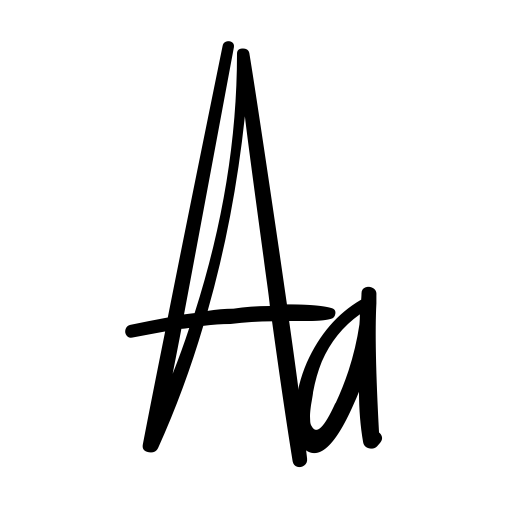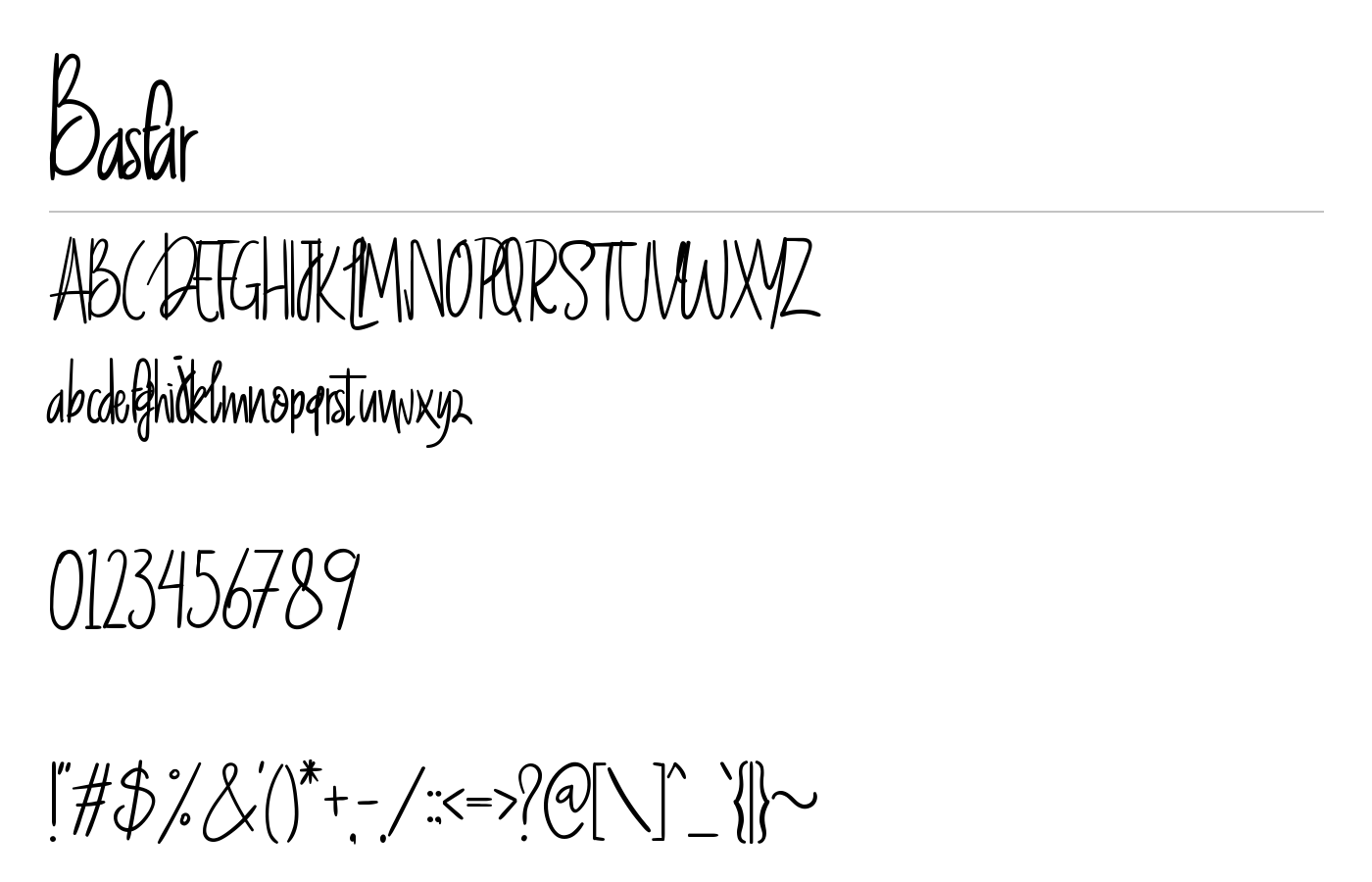
Basfar is a tall, narrow handwritten font with a playful and casual character, featuring thin, uneven strokes that evoke a spontaneous, personal touch. Its irregular letterforms and high x-height make it ideal for creative, informal designs like invitations, posters, or branding that seeks a unique, approachable feel. This font works best in headlines or short text where its distinctive style can shine without overwhelming the reader.
Basfar Font
About Basfar Font